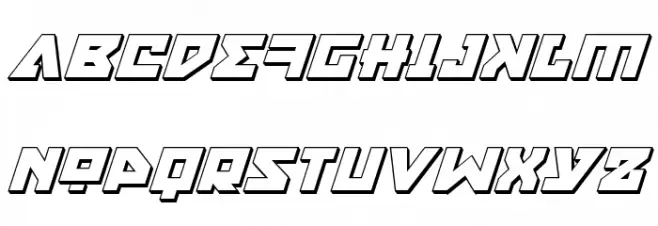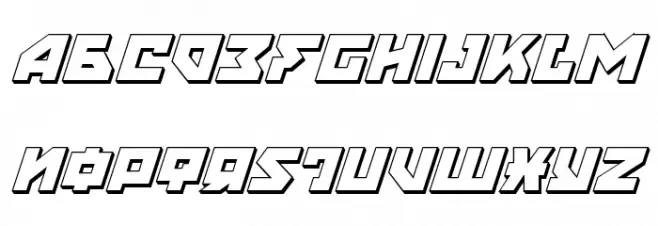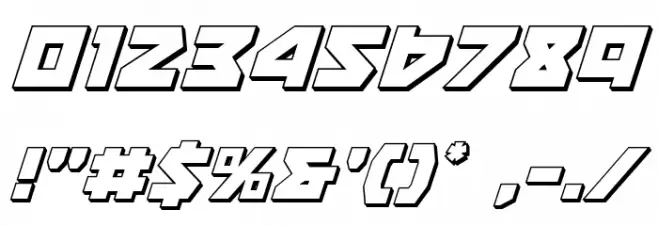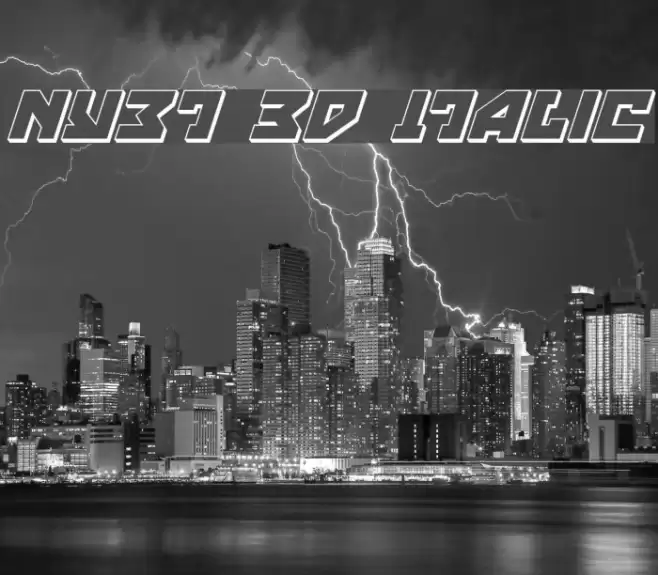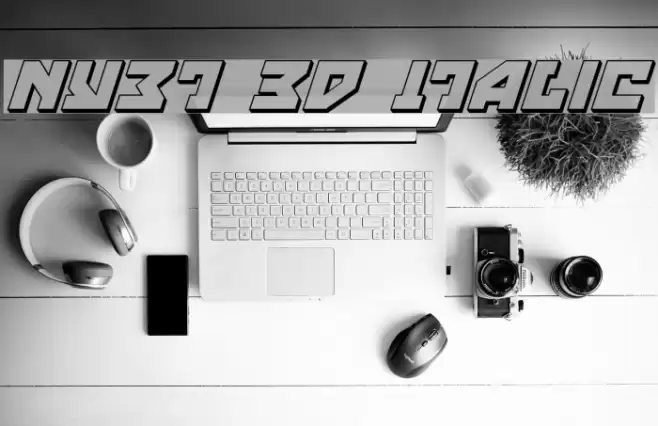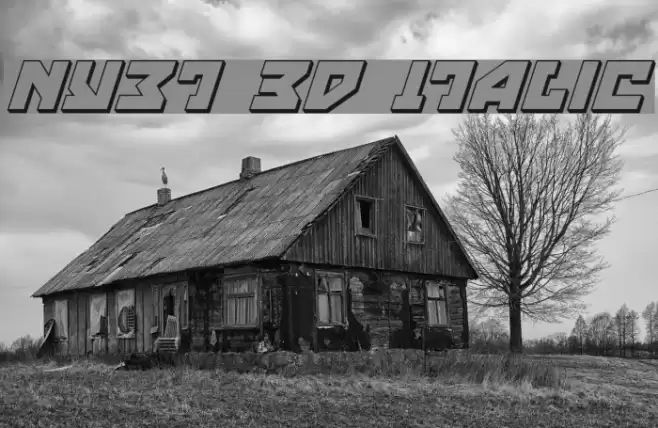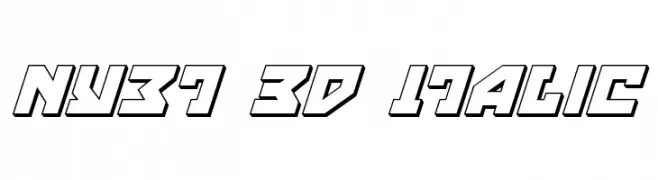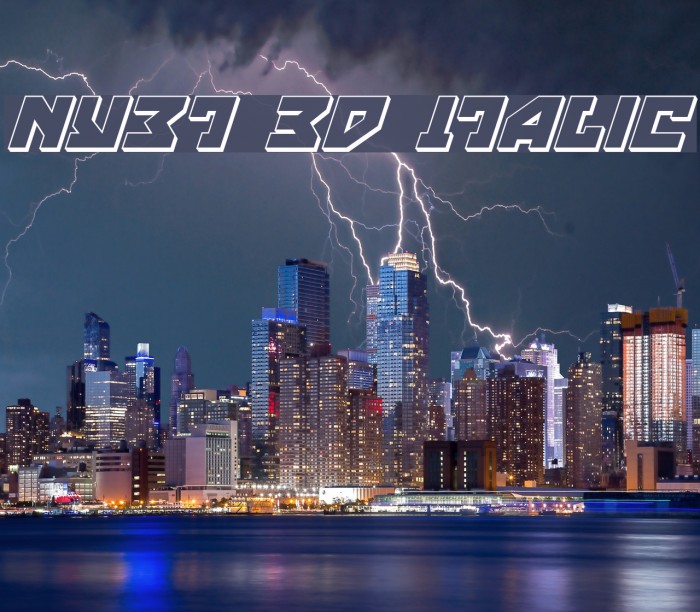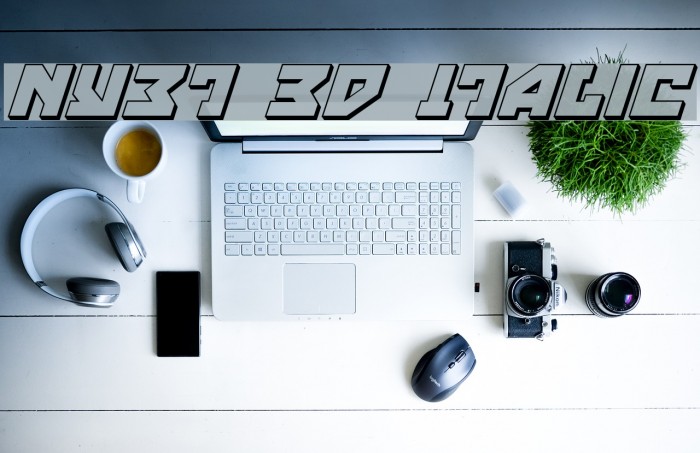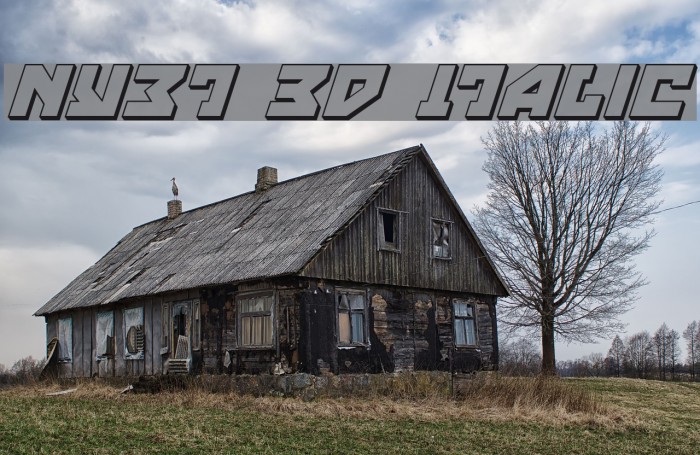
Nyet 3D Italic
This font features a bold, three-dimensional design with an italic slant, creating a dynamic and futuristic appearance. The characters are outlined with a thick border, enhancing the 3D effect and giving each letter a distinct, shadowed look. The geometric shapes and sharp angles contribute to a modern and edgy style, making it stand out in any design. The uppercase and lowercase letters maintain a consistent style, while the numbers and special characters complement the overall aesthetic. This font is ideal for projects that require a strong visual impact.
A bold, 3D italic font with a futuristic and dynamic style.
- Proposed Projects: Ideal for video game titles, movie posters, tech branding, and futuristic-themed designs.
- Contrast: High